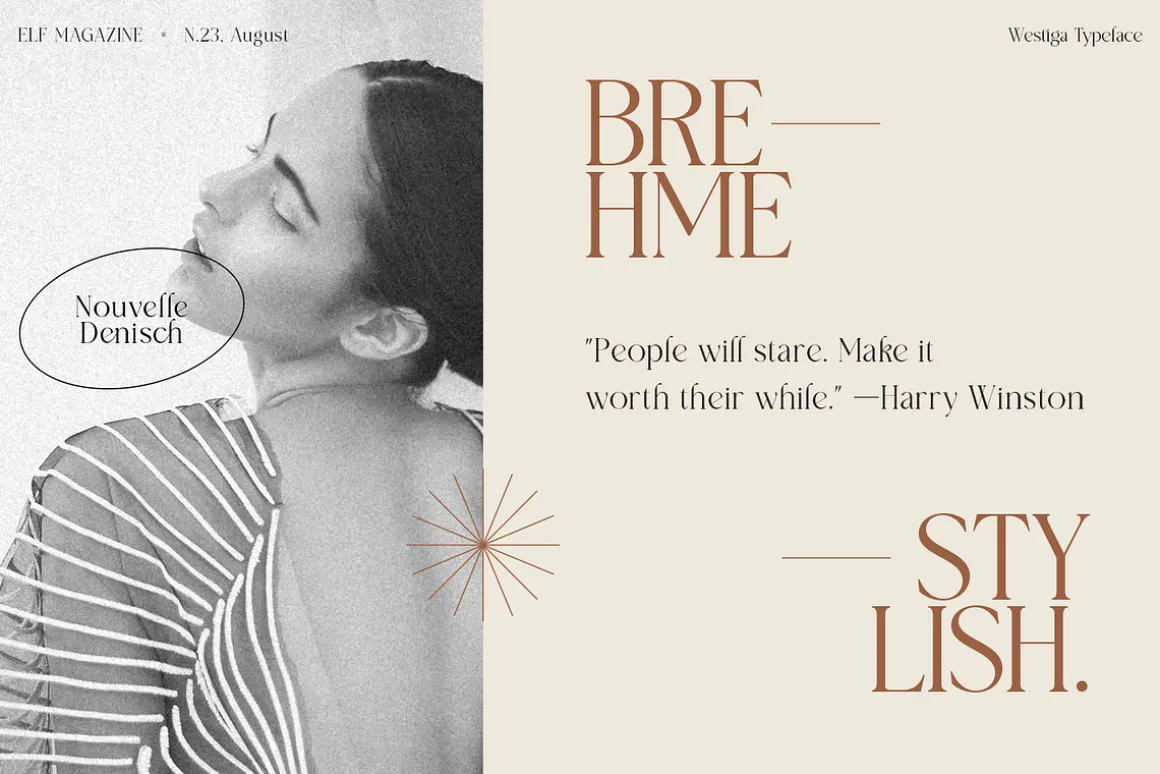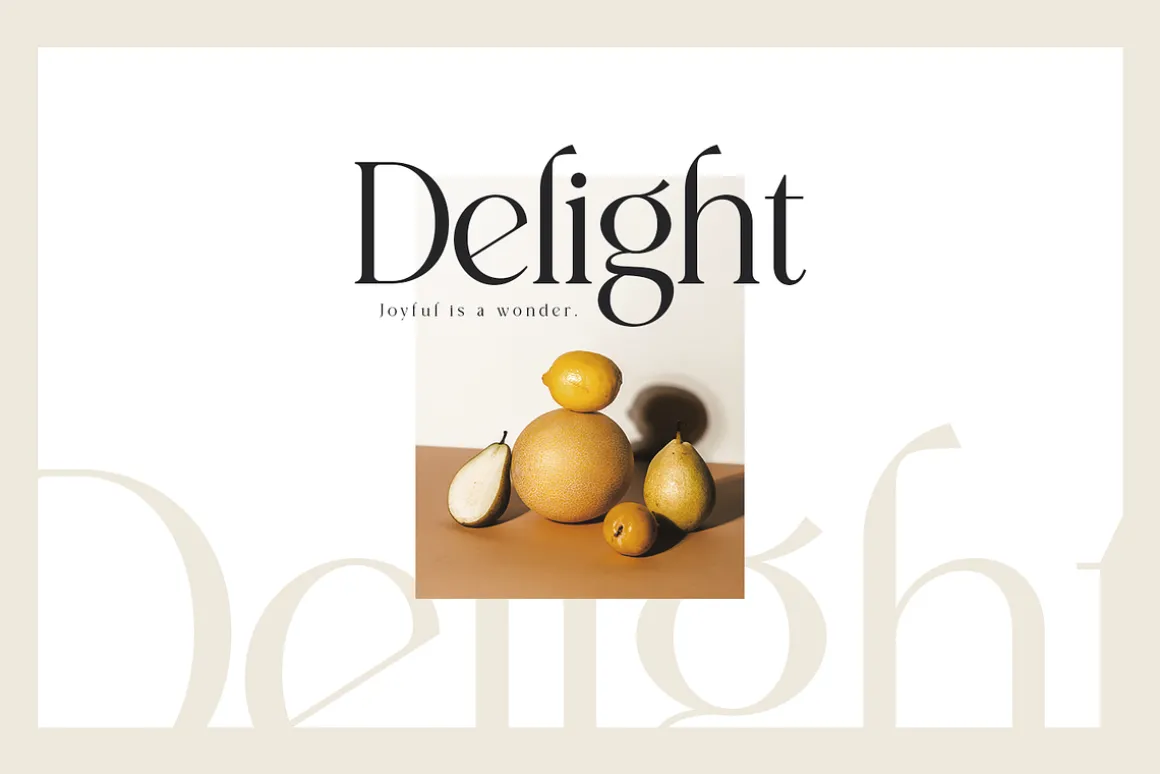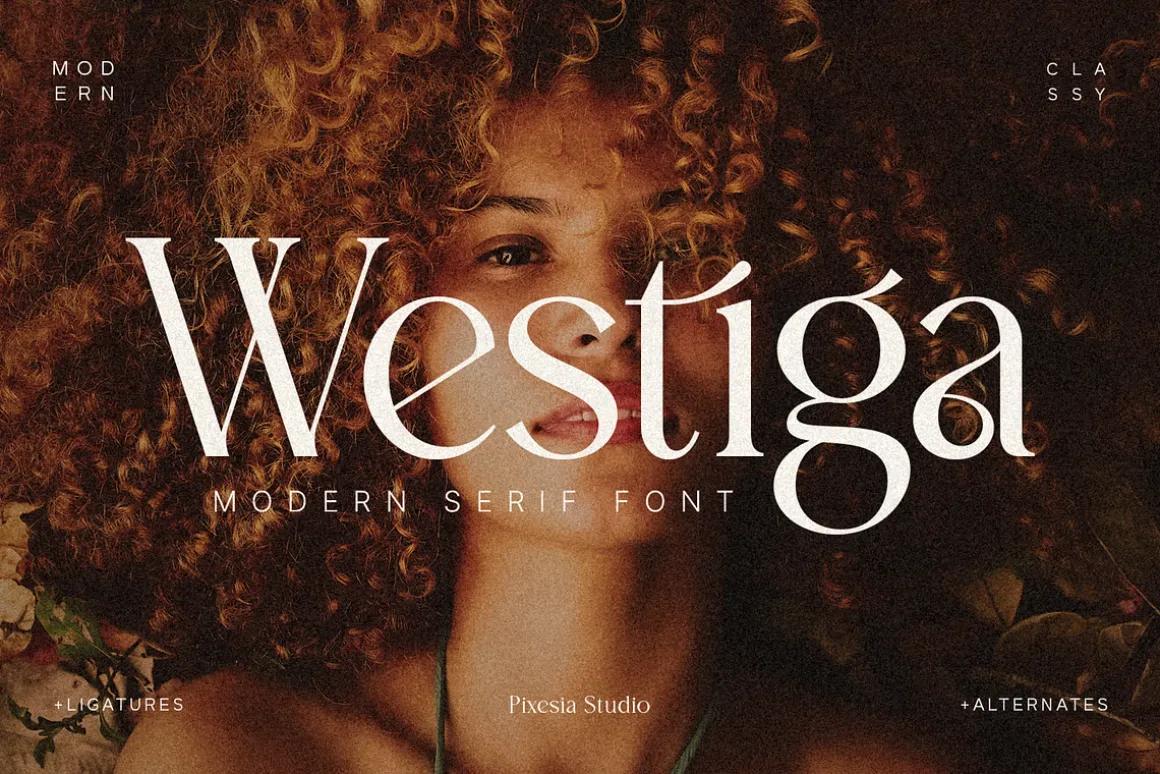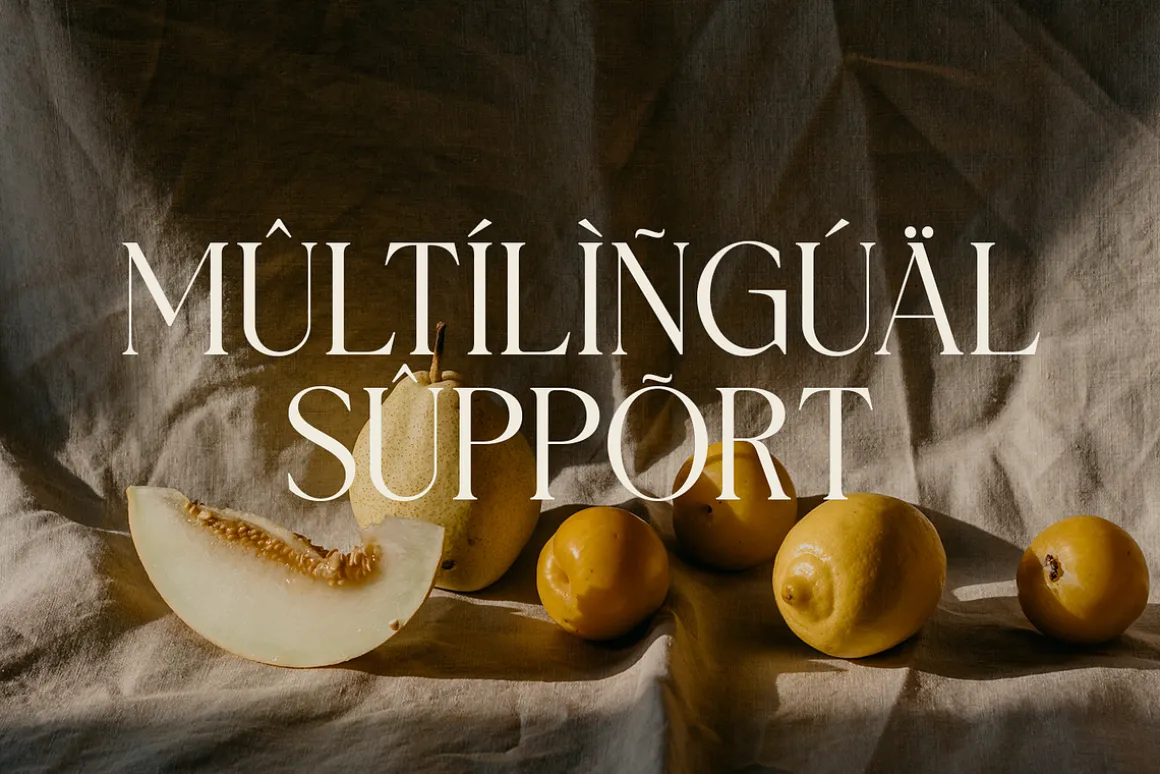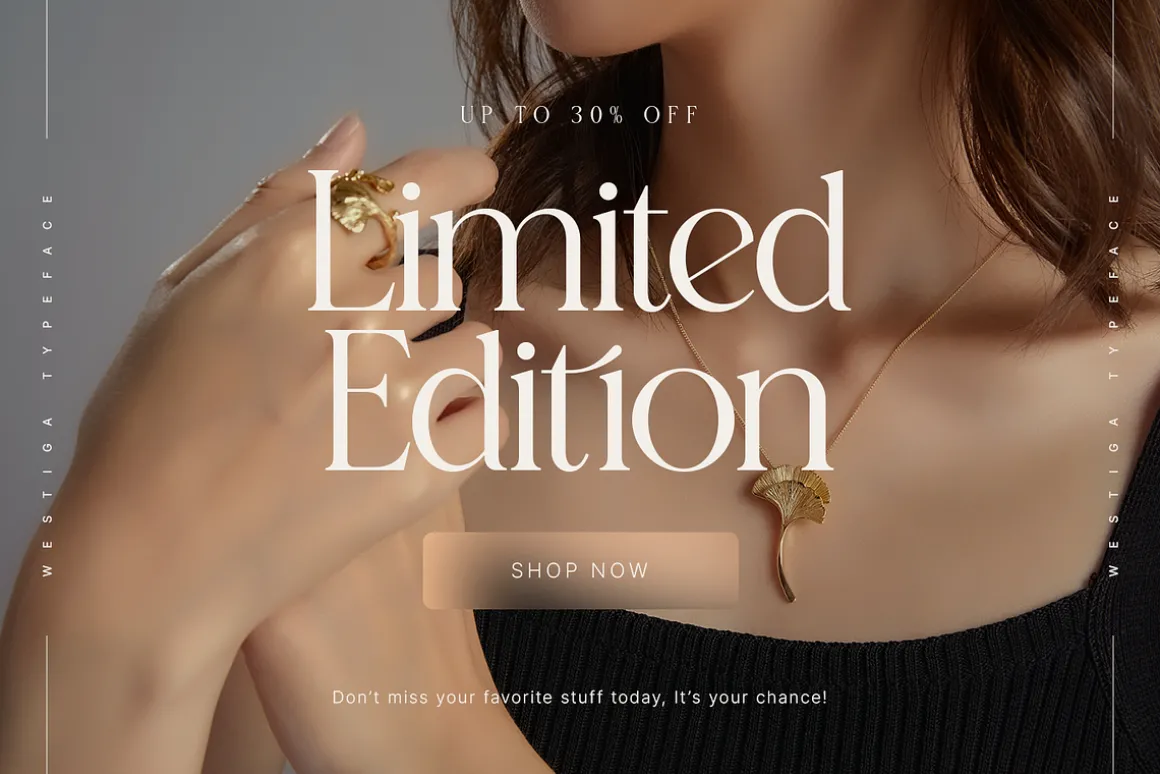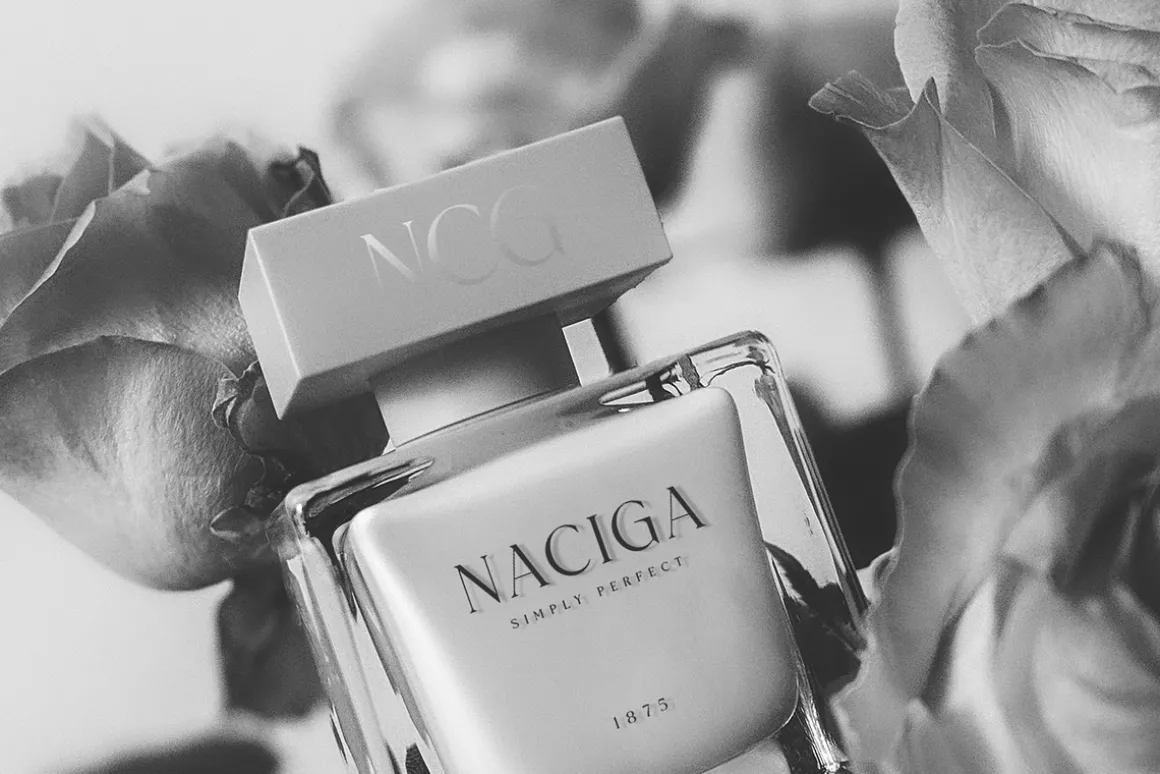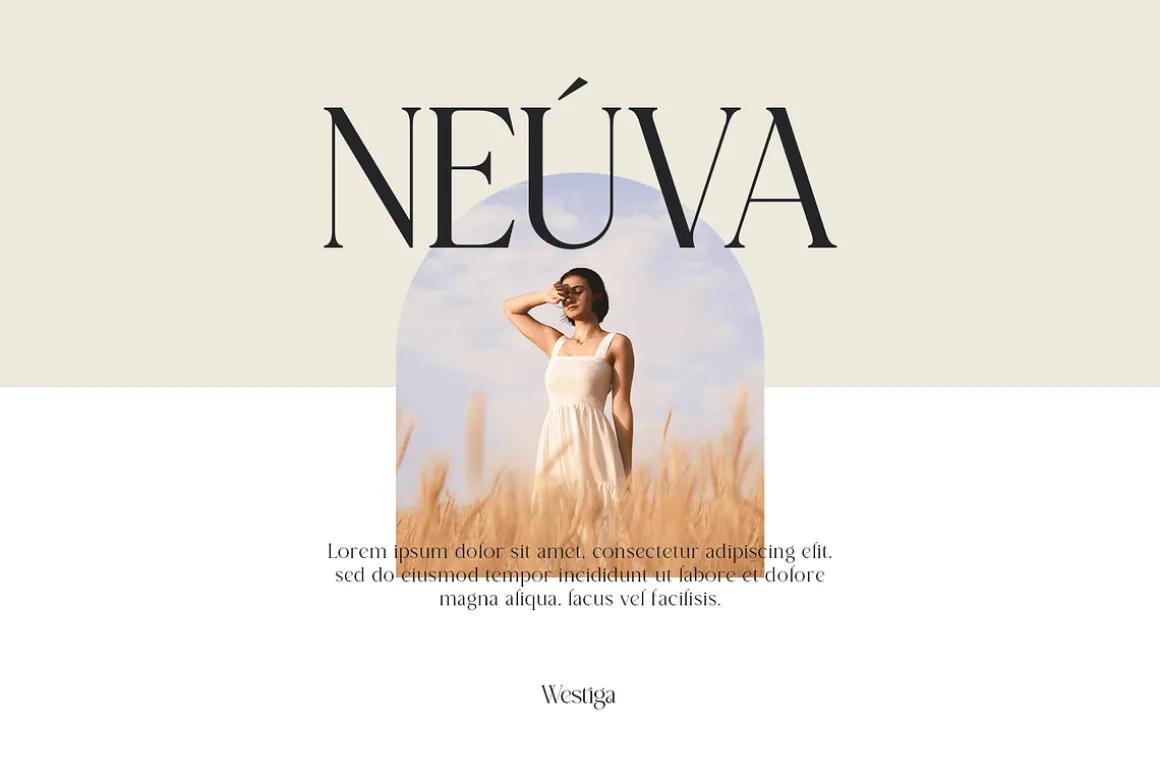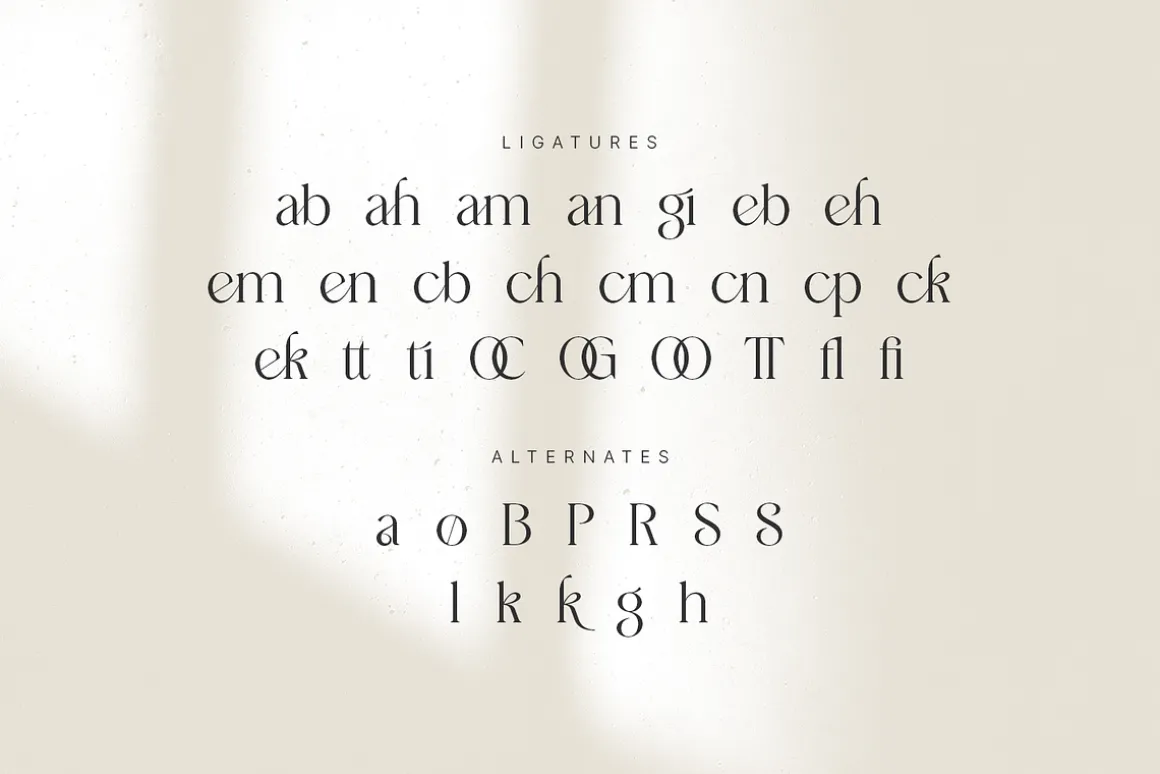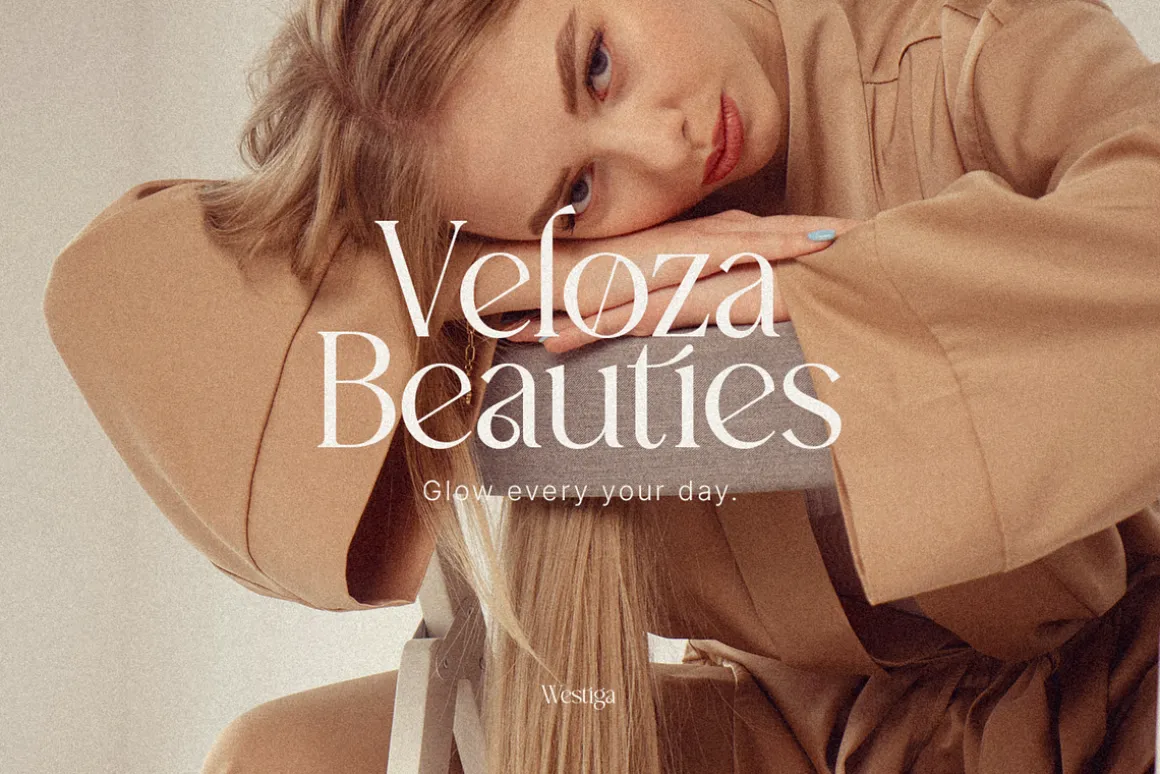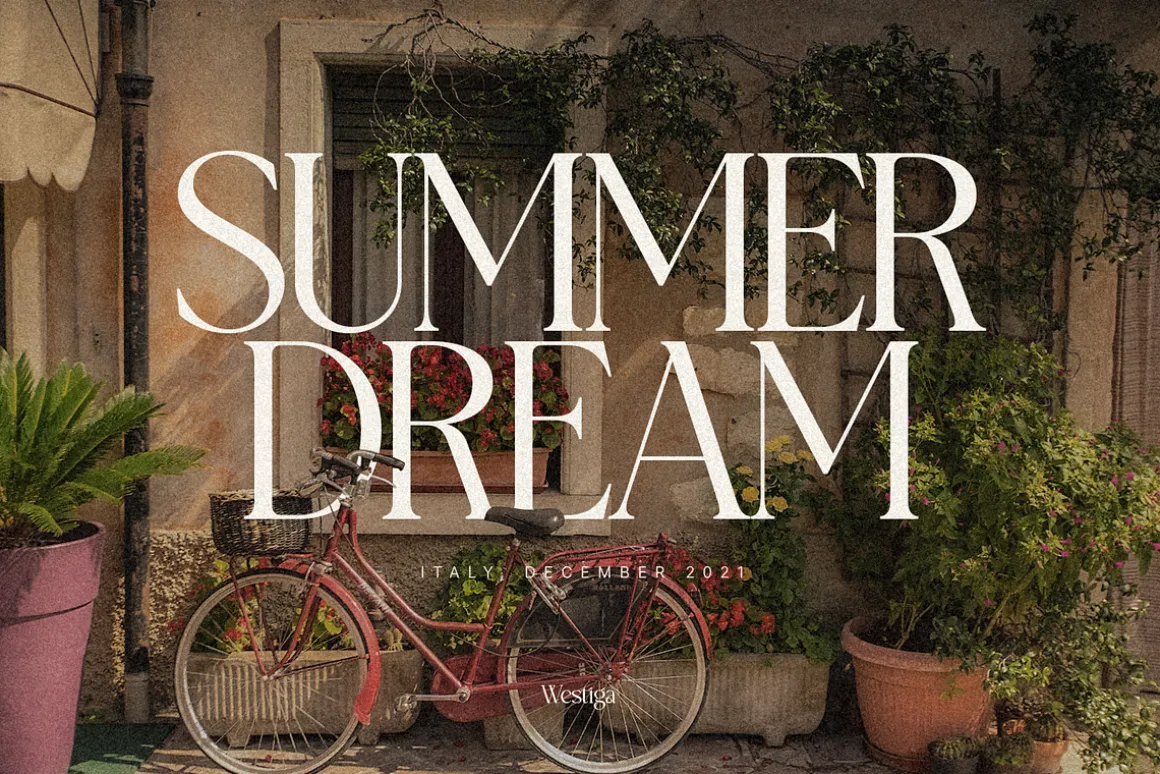
Introducing Westiga – Modern & Luxury Serif Font
Westiga is a modern and luxury serif typeface designed with beautifulcrafted characters that follow the trend. It can be used for adding a unique touch to logos, heading, branding business, magazines, product packaging, invitation, monograms, merchandise, poster book title, movie title or pull quotes and so much more.
FEATURES
- Stylistic Alternates
- Ligatures
- Uppercase and Lowercase letters
- Numbering and Punctuations
- Multilingual Support